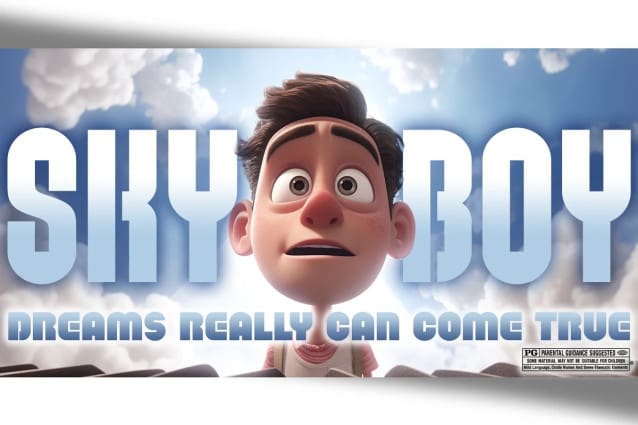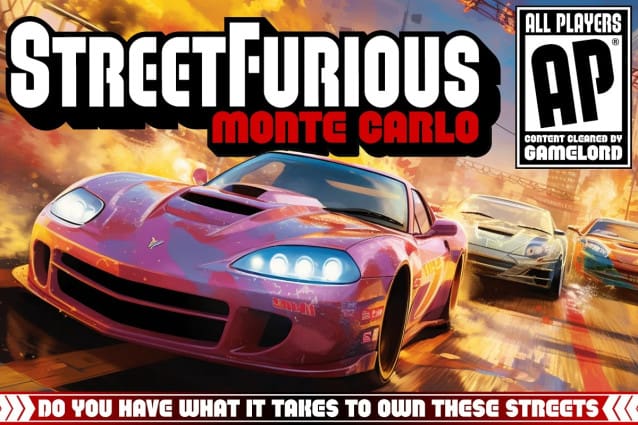
PowerUp Family Font
PowerUp Family Font – The gaming world is loaded with so many cool logotypes that never see the full font light of day. The PowerUp family finds its origins of inspiration in the Super Mario Bros. logotype, and been expanded upon to create its two unique styles and extruded shadow typefaces.
PowerUp celebrates the geometric sans serif stylings of the original logotype, both in its condensed and heavyweight forms, and gives them the full character set they deserve. It’s fun and functional.
Each font includes a full standard character set with expansive international support of latin based languages, and 2 weight/width styles and three shadow styles. This highly stylized family is ready to electrify design urges, both digital and beyond.